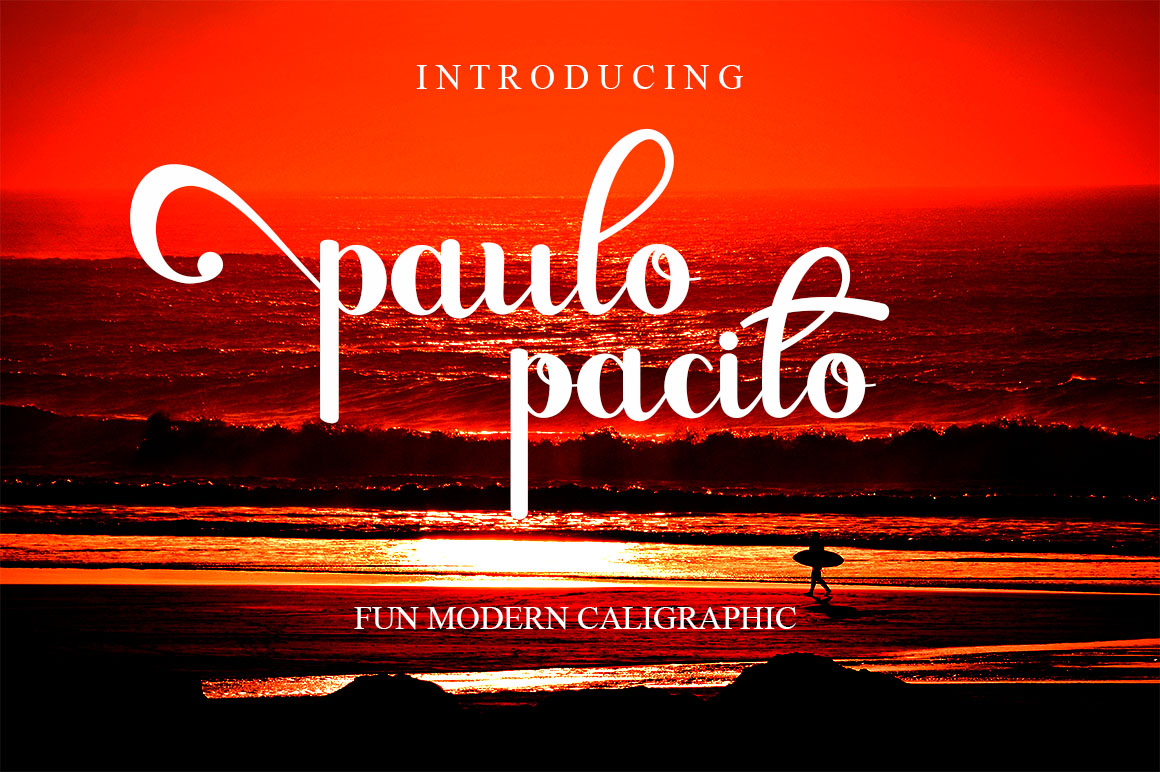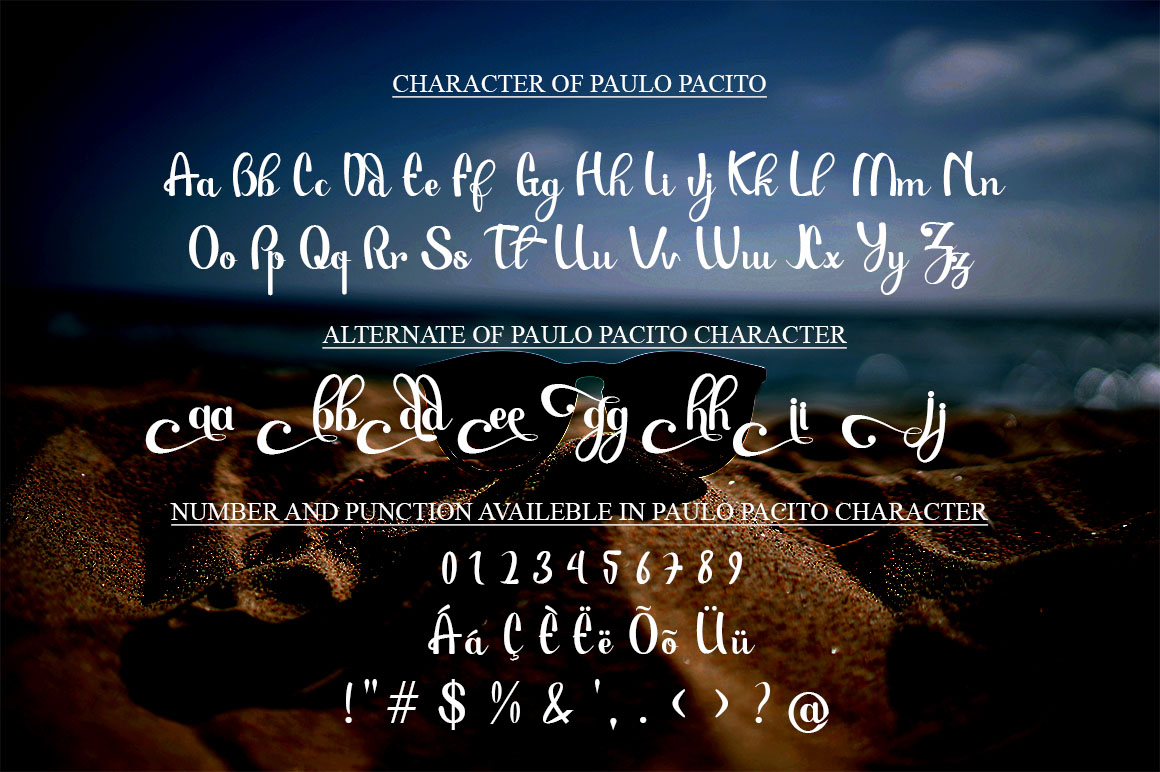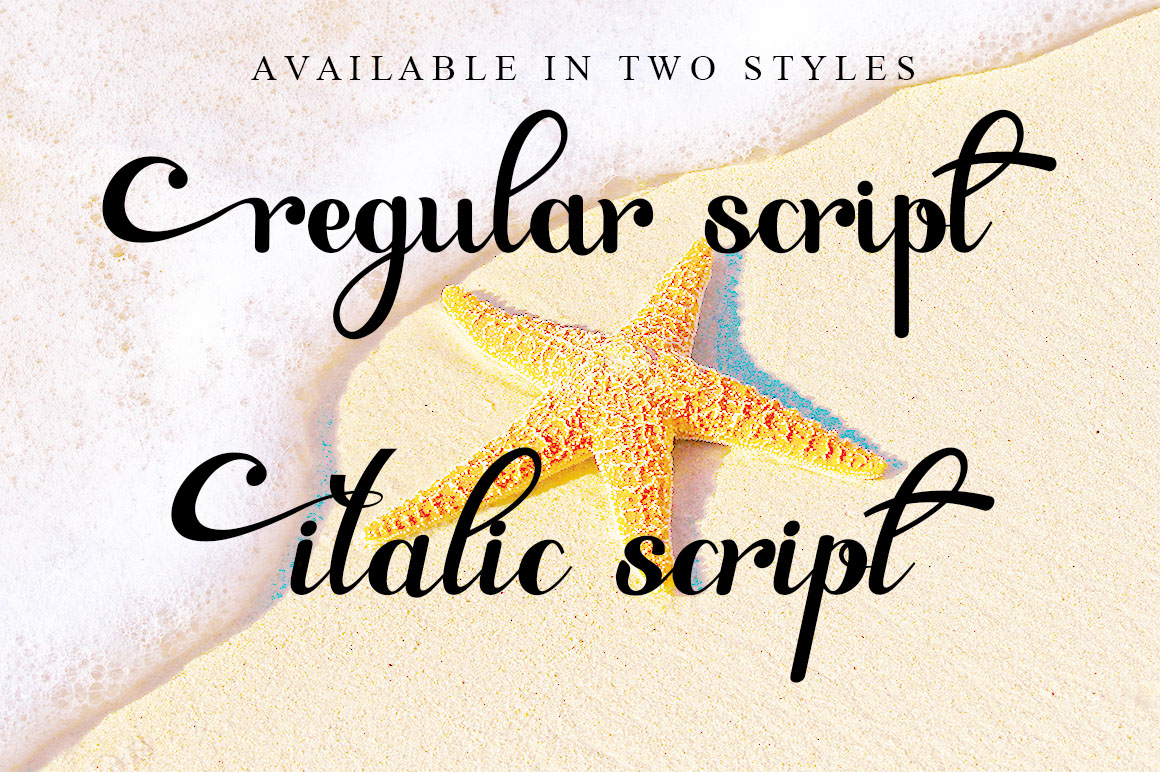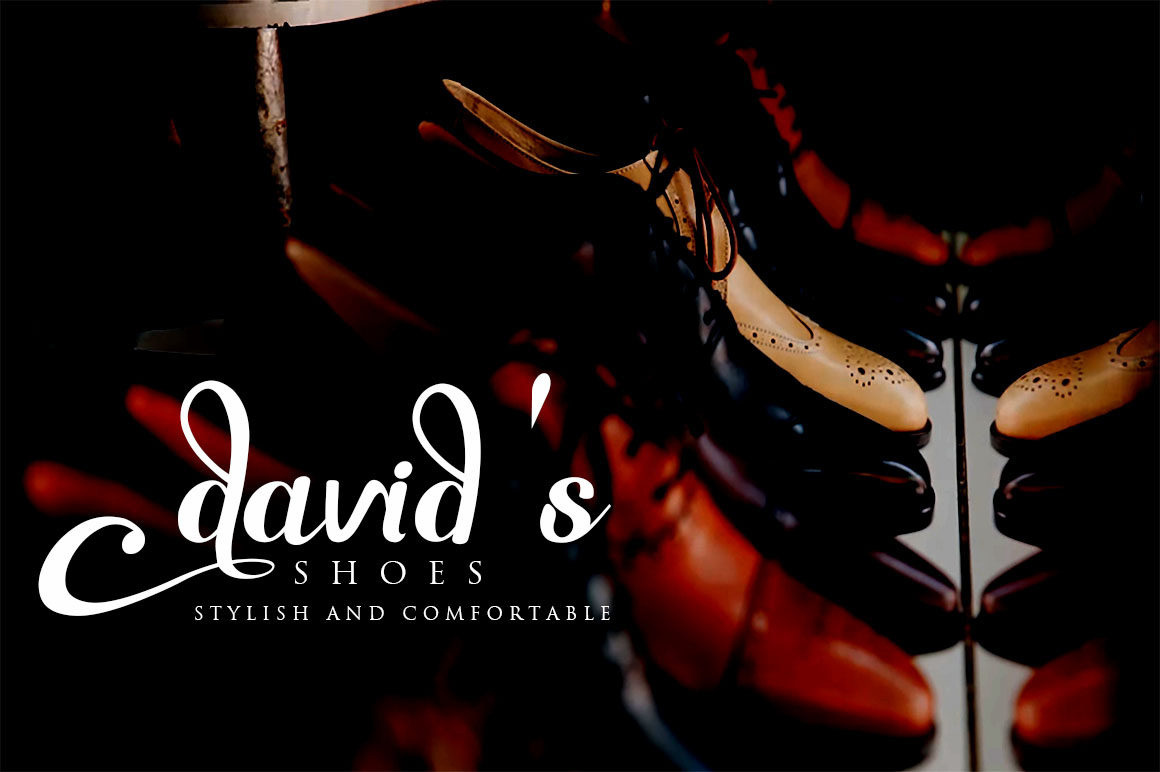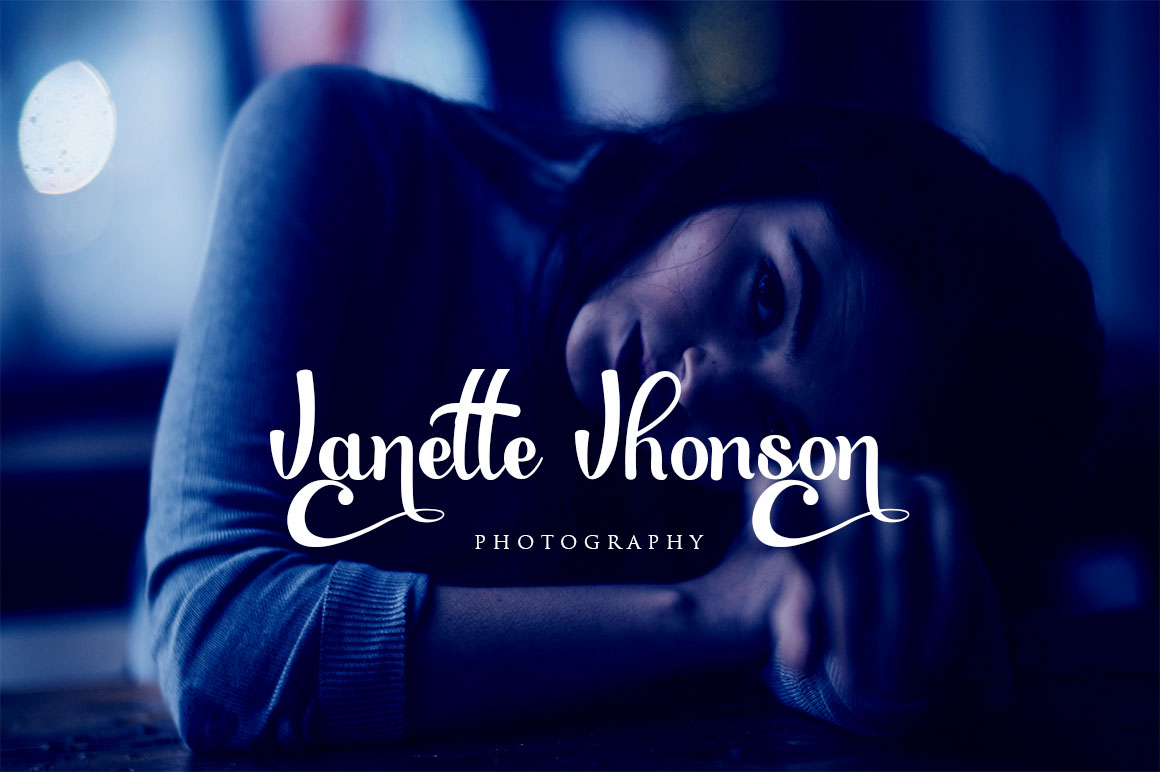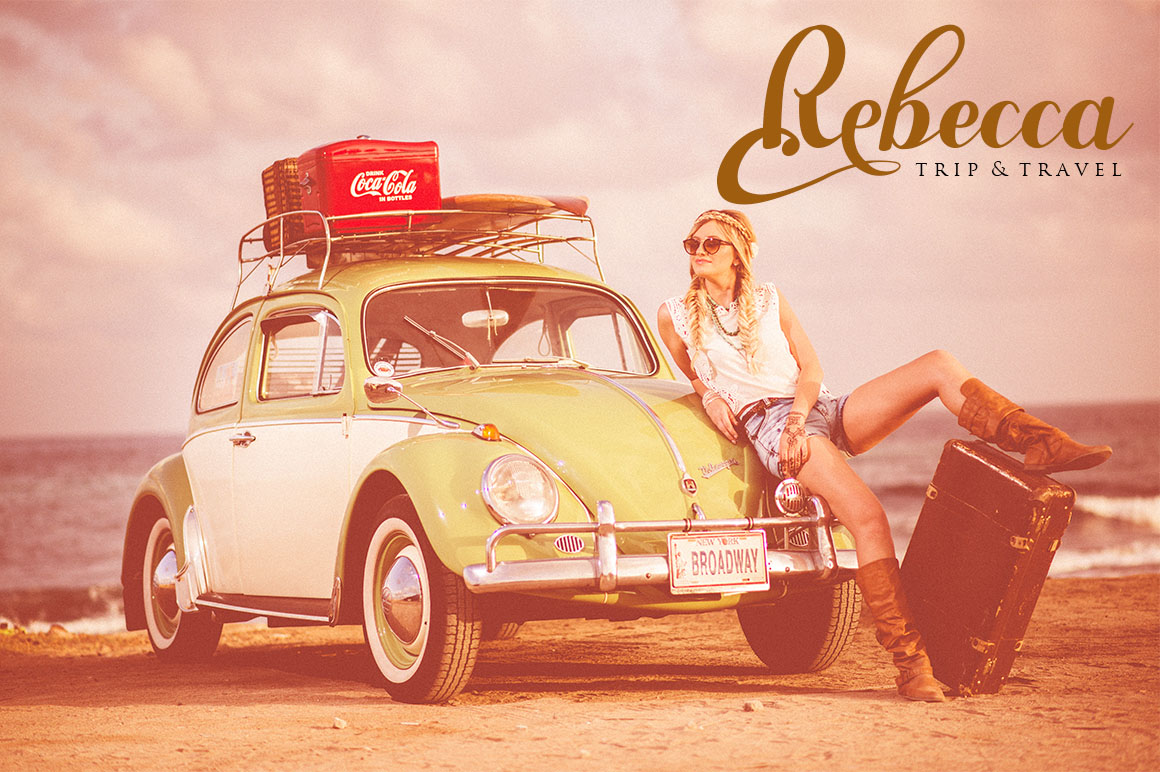
Paulo Pacito Font
About Paulo Pacito Font
Paulo Pacito is a romantic and fresh calligraphic font, suitable for a wide range of displays and designs! This handwritten styled font has a beautiful curvature and contrast that makes it accessible for both modern and retro designs.